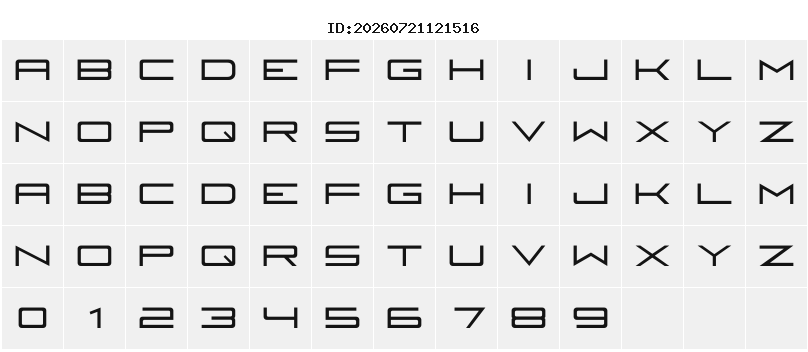
Fireye GF 3 Preview
• Font Name: Fireye GF 3
• Designer: John Litwinowicz
• Manufacturer: Grayfire Fonts
About Fireye GF 3.ttf
Fireye GF 3.ttf is a modern, elegant sans-serif font designed for ultimate readability and visual harmony. Perfect for branding, headlines, web design, and print materials.